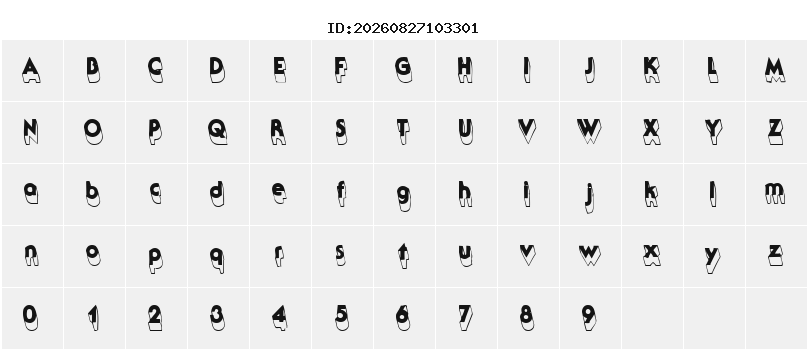
3-DGothic Preview
• Font Name: 3-DGothic
• Full Font Name: 3-DGothic
• PostScript Name: 3-DGothic
About 3-DGothic.ttf
3-DGothic.ttf is a modern, elegant sans-serif font designed for ultimate readability and visual harmony. Perfect for branding, headlines, web design, and print materials.